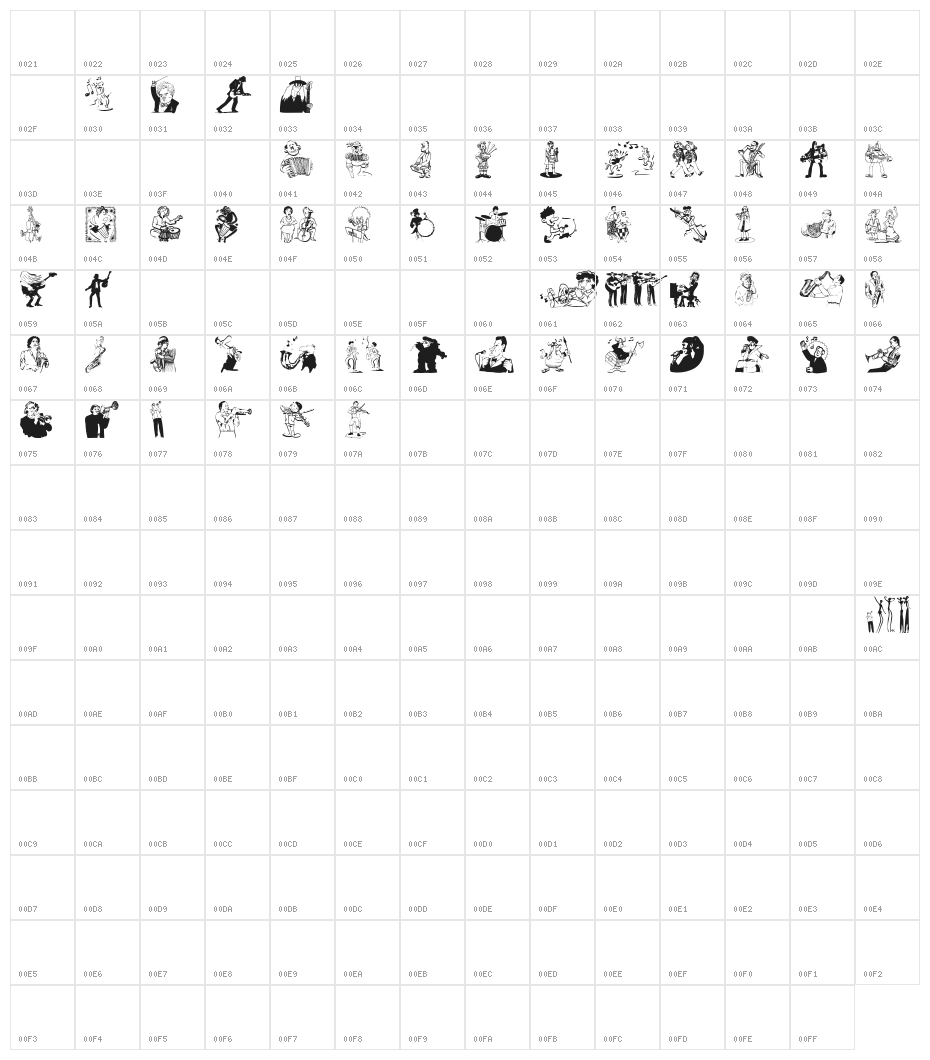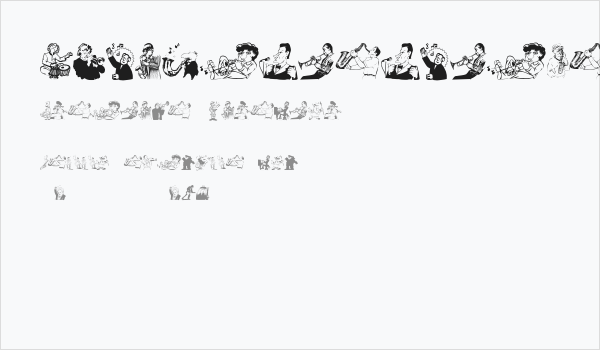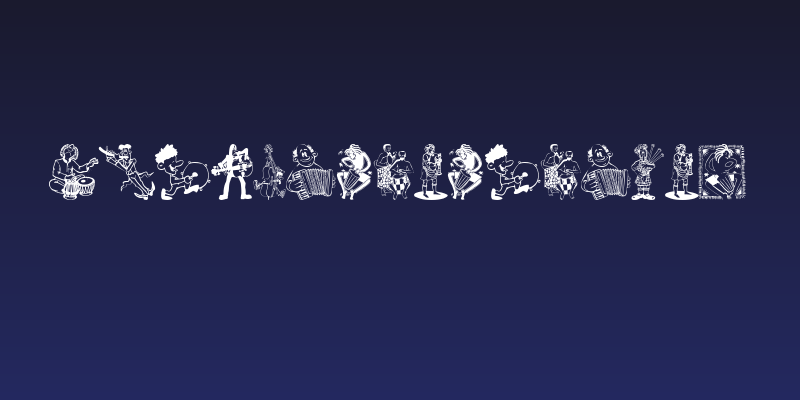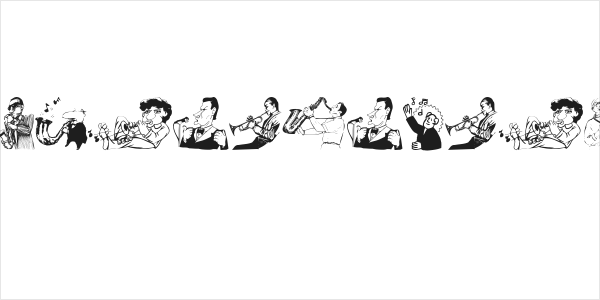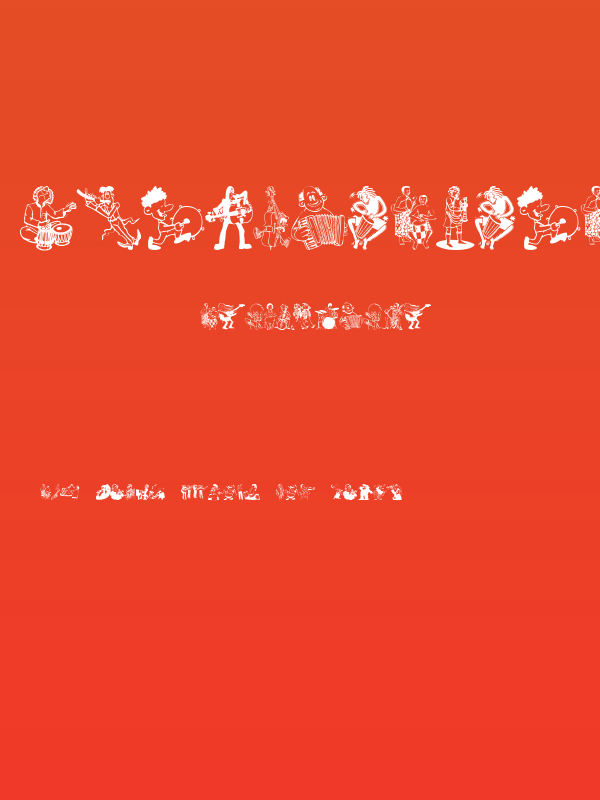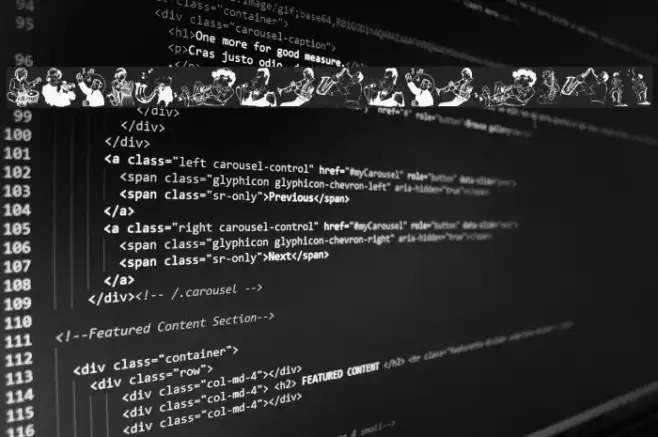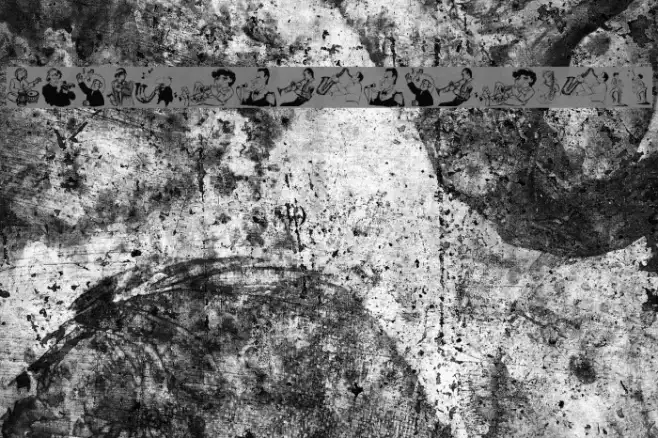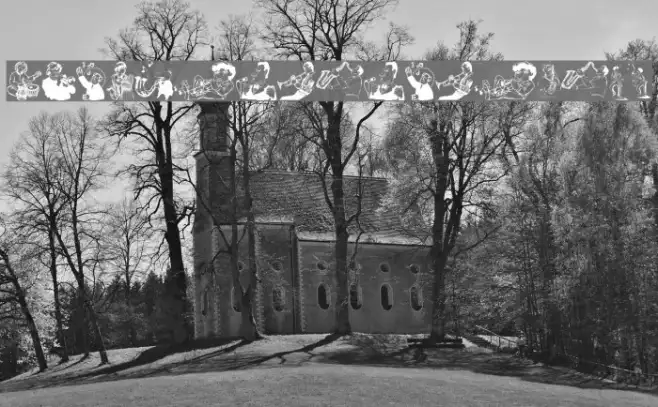
Musikantenstadel Font
Musikantenstadel Description
A playful, illustrative font where each character is represented by a unique cartoon of musicians or musical scenes, featuring a variety of instruments and expressive poses. The style is hand-drawn, whimsical, and highly decorative, with each letter and symbol forming a distinct musical vignette.
| Overall Style | Whimsical, Playful, Decorative |
| Use Case | Headlines, Posters, Themed Graphics |
| Proposed Projects | Children’s books, music event posters, educational materials, playful branding, themed invitations. |